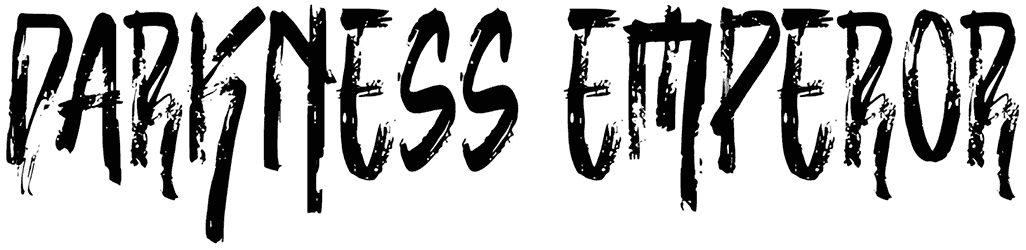
Birada! Font
Birada Font
Looking for something with a spooky feel, then you’re at the correct place! This Birada! is the best opportunity as it only contains capitalized alphabet letters and some punctuations so that you assemble creepy and comical typography. The characters of this particular free horror font deliver a scary and exciting feel at one time.
Birada! Has a hand-drawn look and is excellent for many different places, a few of which are mysterious comic books, horror movies, book titles, websites, and Halloween outfits.
Designed by: PremiereGraphics